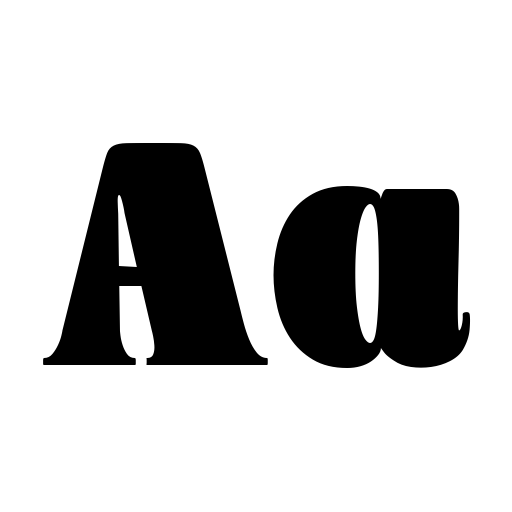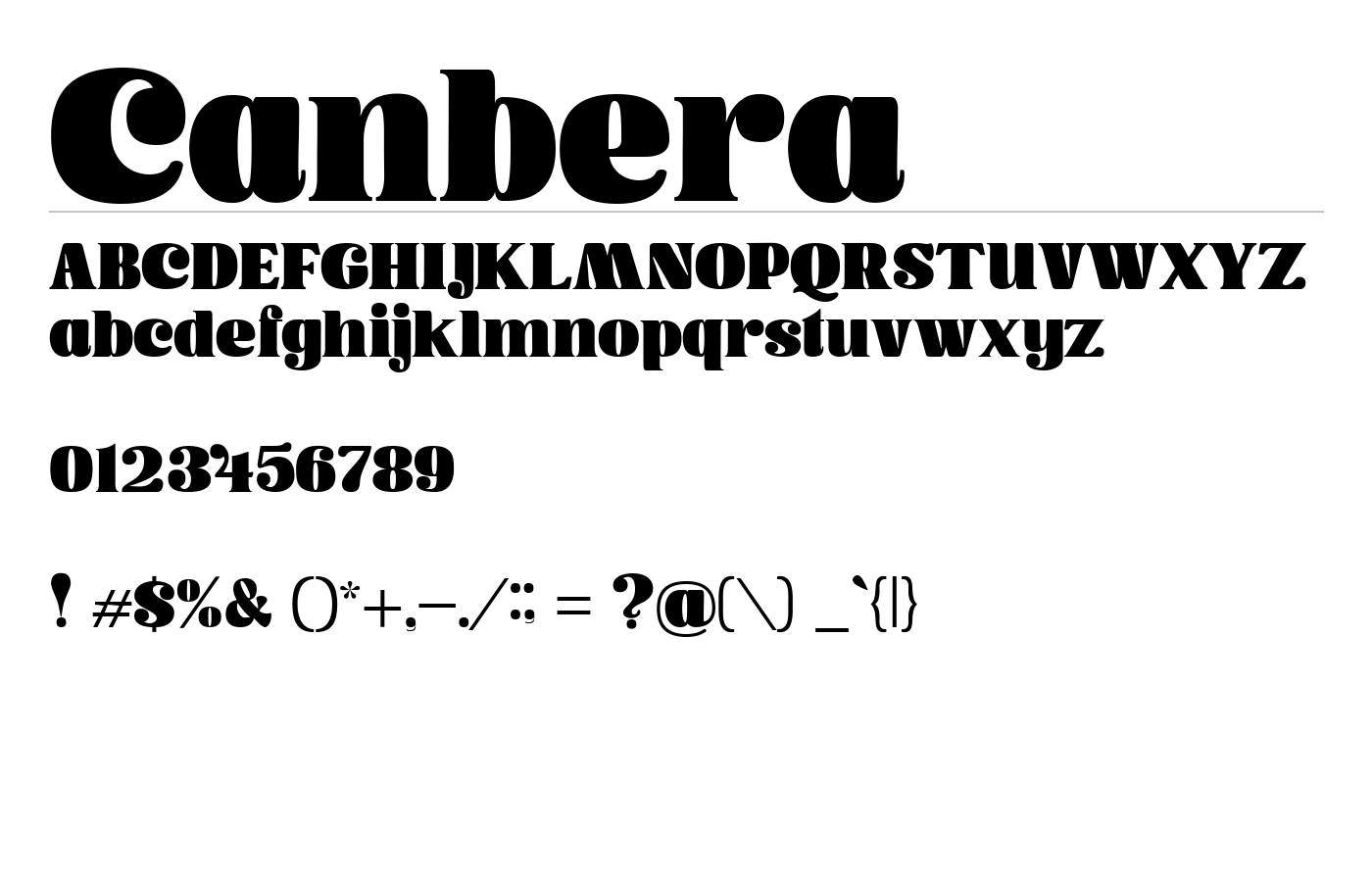
Canbera is a bold slab serif font characterized by its strong, heavy strokes and slightly condensed letterforms that create a commanding presence. With its high contrast and rounded, bracketed serifs, the font conveys a vintage, yet impactful style, making it ideal for headlines, logos, and packaging where attention-grabbing, stylish expression is needed. Its robust design suits brands and projects aiming for a mix of classic charm and bold modernity.
Canbera Font
About Canbera Font